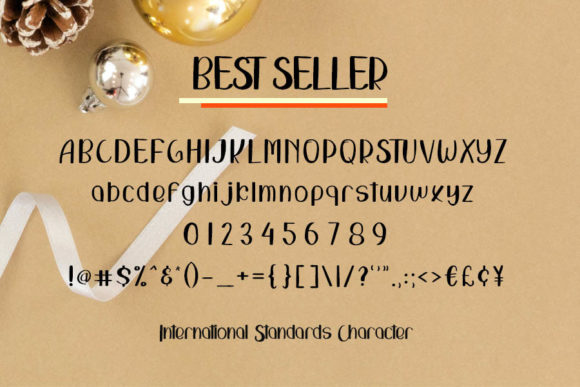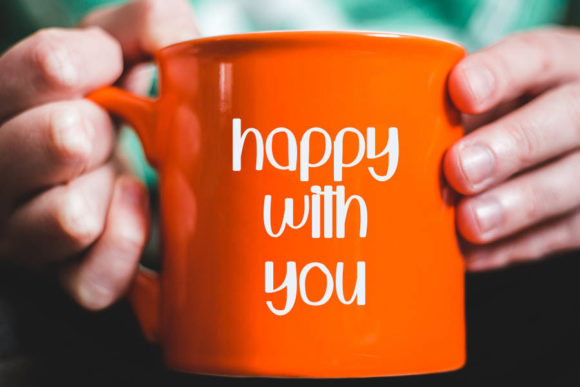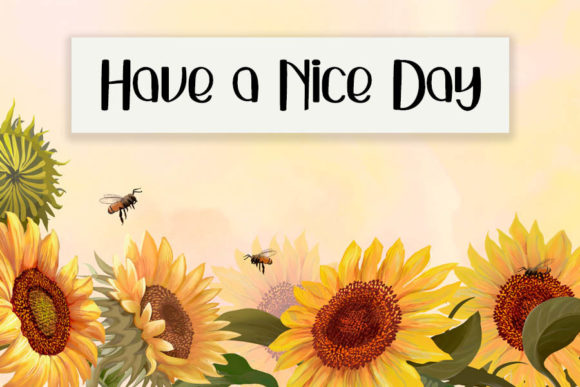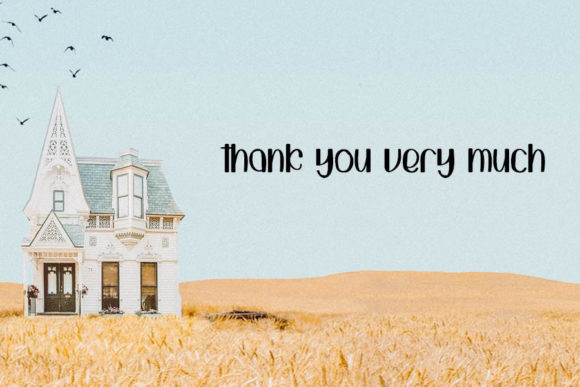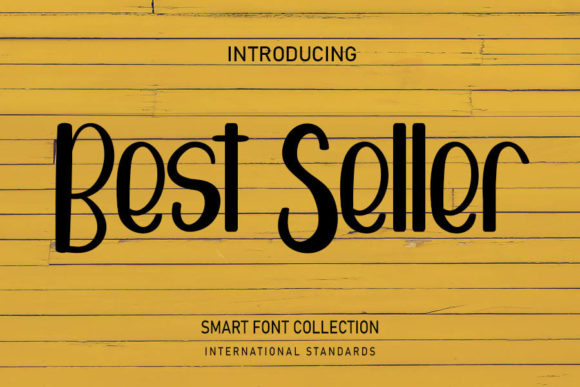
The Ultimate Guide to Best Seller Font: A Friendly and Quirky Handwritten Font
What is Best Seller Font?
Best Seller is a tall and friendly handwritten font that’s a little bit quirky, making it incredibly versatile for various design contexts. Its unique charm makes it perfect for logos, wedding invitations, headings, t-shirts, letterhead, signage, labels, news, posters, badges, and so much more.
- ✨ Unique and quirky handwritten style that’s sure to grab attention
- ✅ Highly versatile and adaptable to various design contexts
- ✅ Easy to read, even at smaller font sizes
- ✅ Supports multiple languages and OpenType features
- ⚠️ Some characters may appear a bit cramped or uneven, requiring manual kerning
- 🤔 Limited availability of stylistic alternates, but still offers a range of glyphs and OpenType features
The Story Behind Best Seller Font
Best Seller font was designed with the intention of creating a friendly, approachable handwritten font that would be suitable for a wide range of design contexts. The designer aimed to craft a font that would be both elegant and quirky, making it perfect for designers, crafters, and creative hobbyists looking for a unique and versatile font.
| Font Name | Best Seller Font |
| Author | shiddiq.art |
Q: What type of projects is Best Seller font best suited for?
A: Best Seller font is incredibly versatile and can be used for a wide range of projects, including logos, wedding invitations, headings, t-shirts, letterhead, signage, labels, news, posters, badges, and more.
Q: Does Best Seller font support OpenType features?
A: Yes, Best Seller font supports OpenType features, including ligatures, stylistic alternates, and swashes.
Q: Is Best Seller font easy to read?
A: Yes, Best Seller font is designed to be easy to read, even at smaller font sizes, making it perfect for body text and headings.